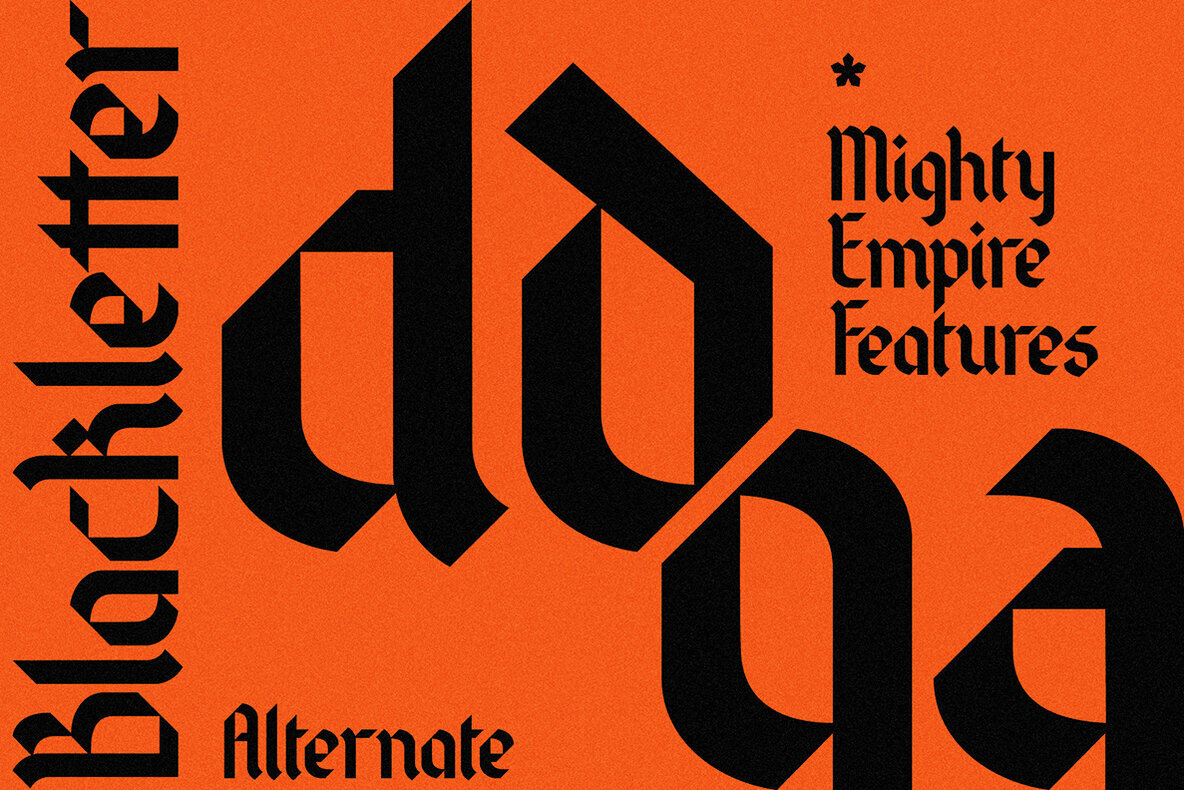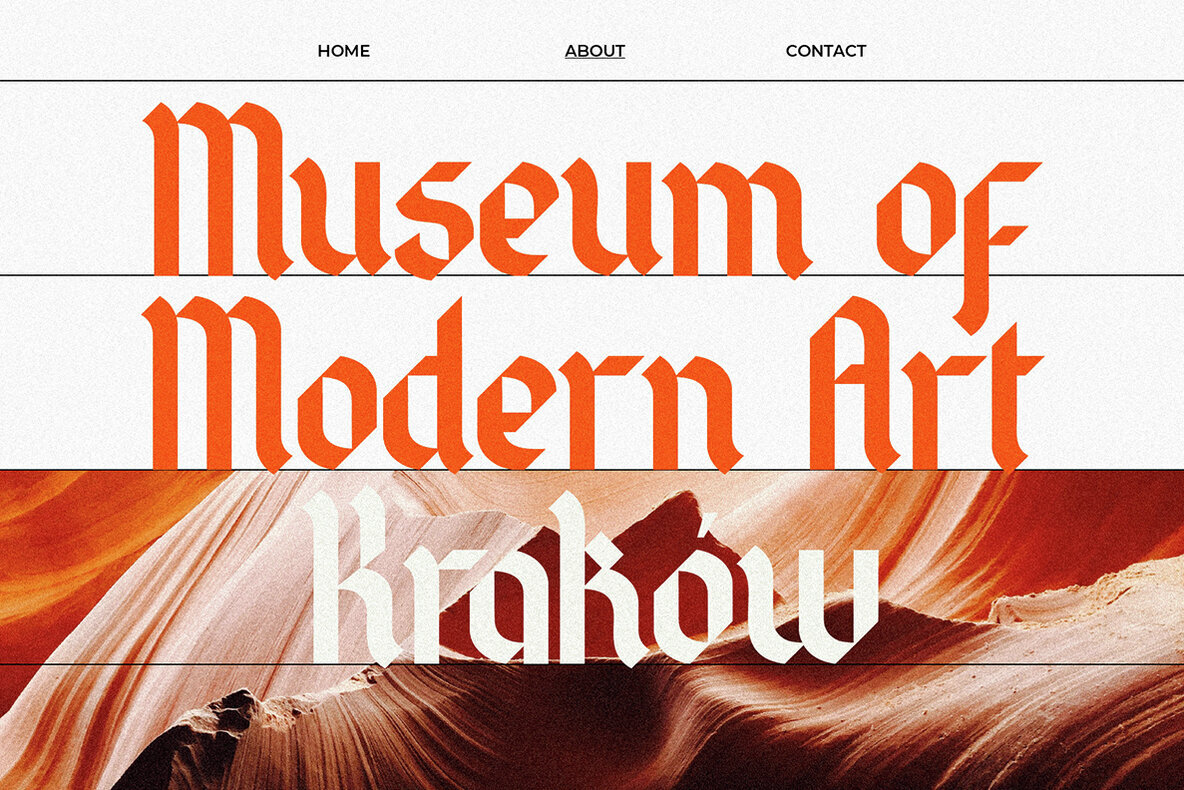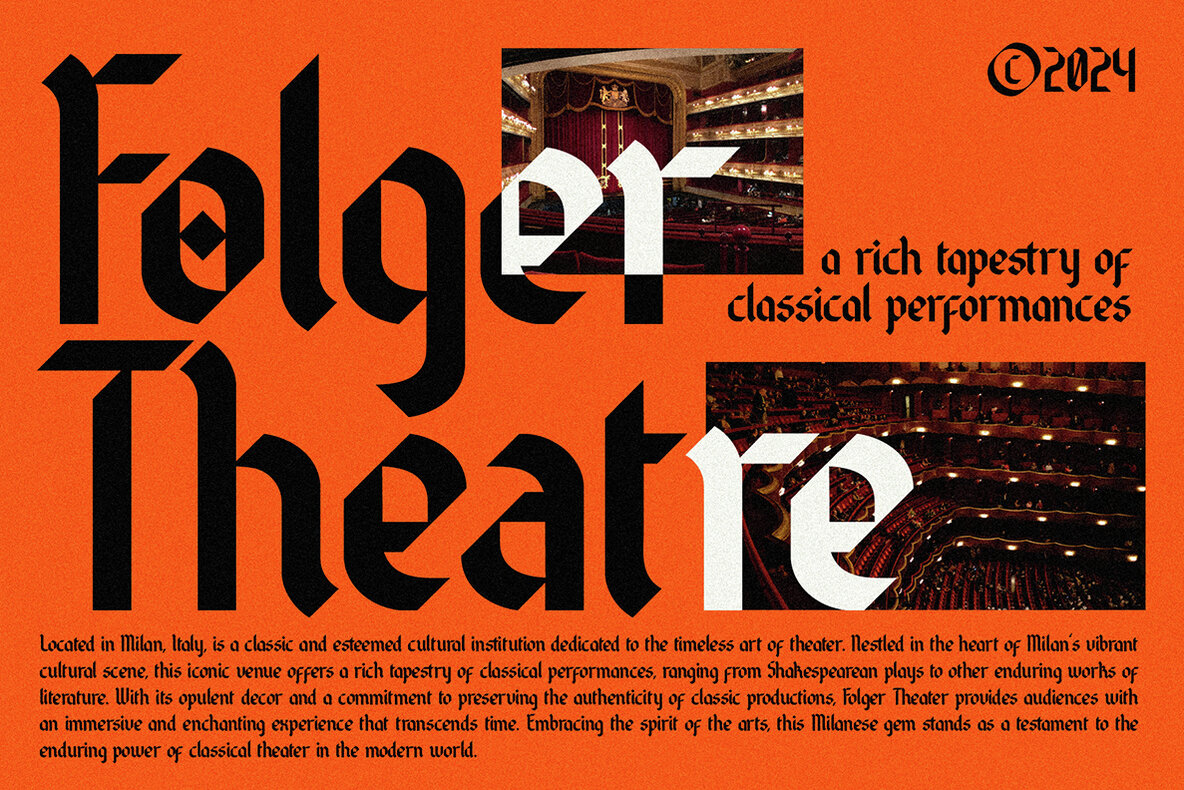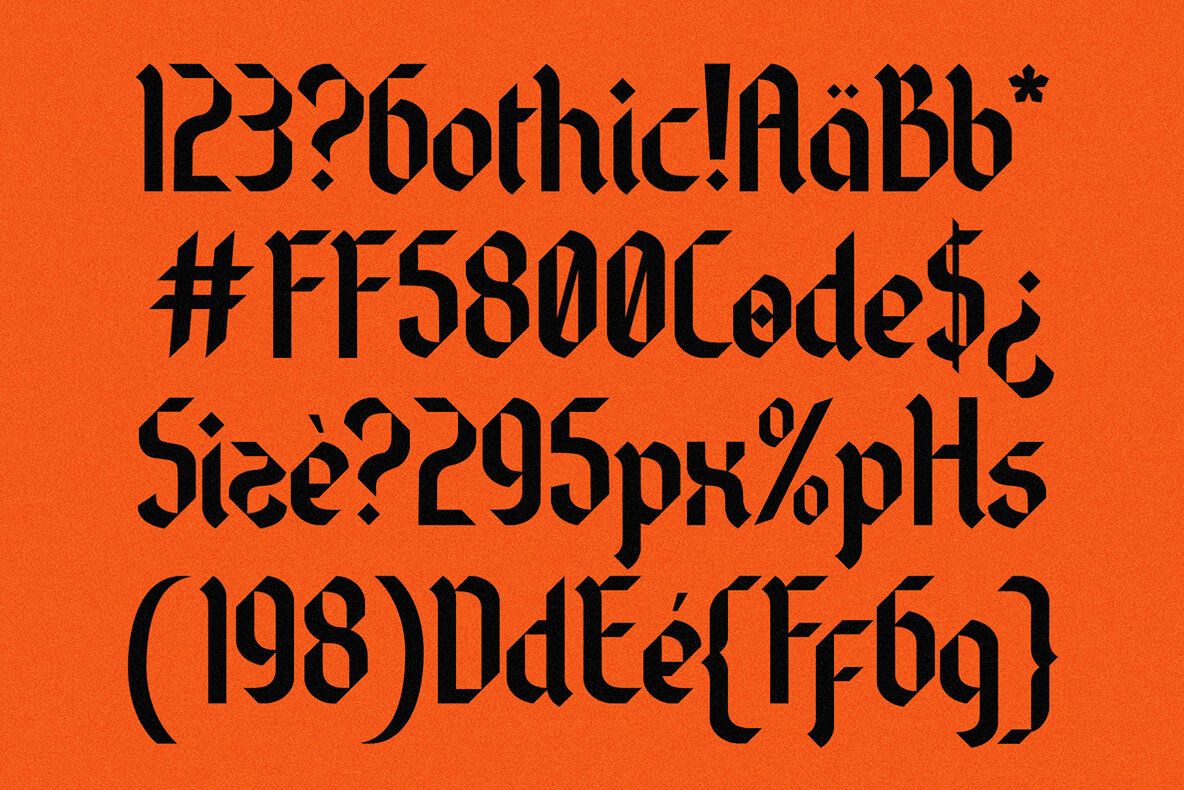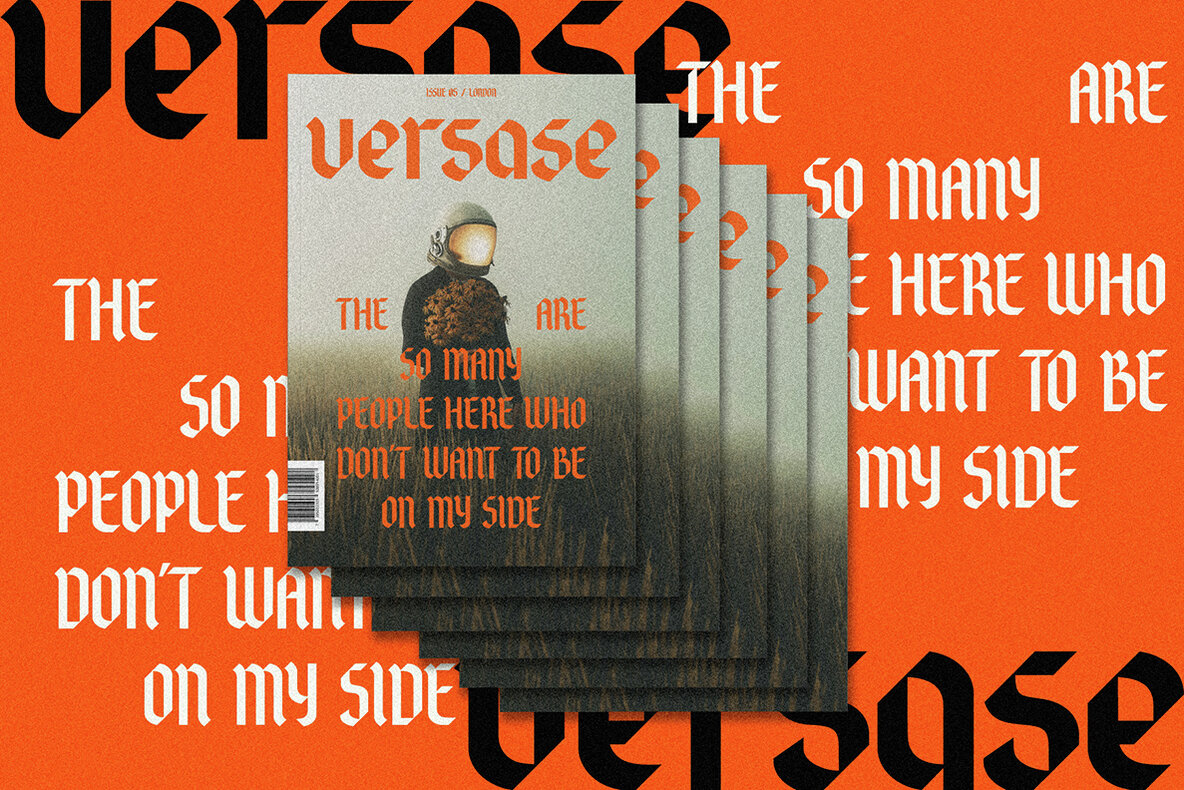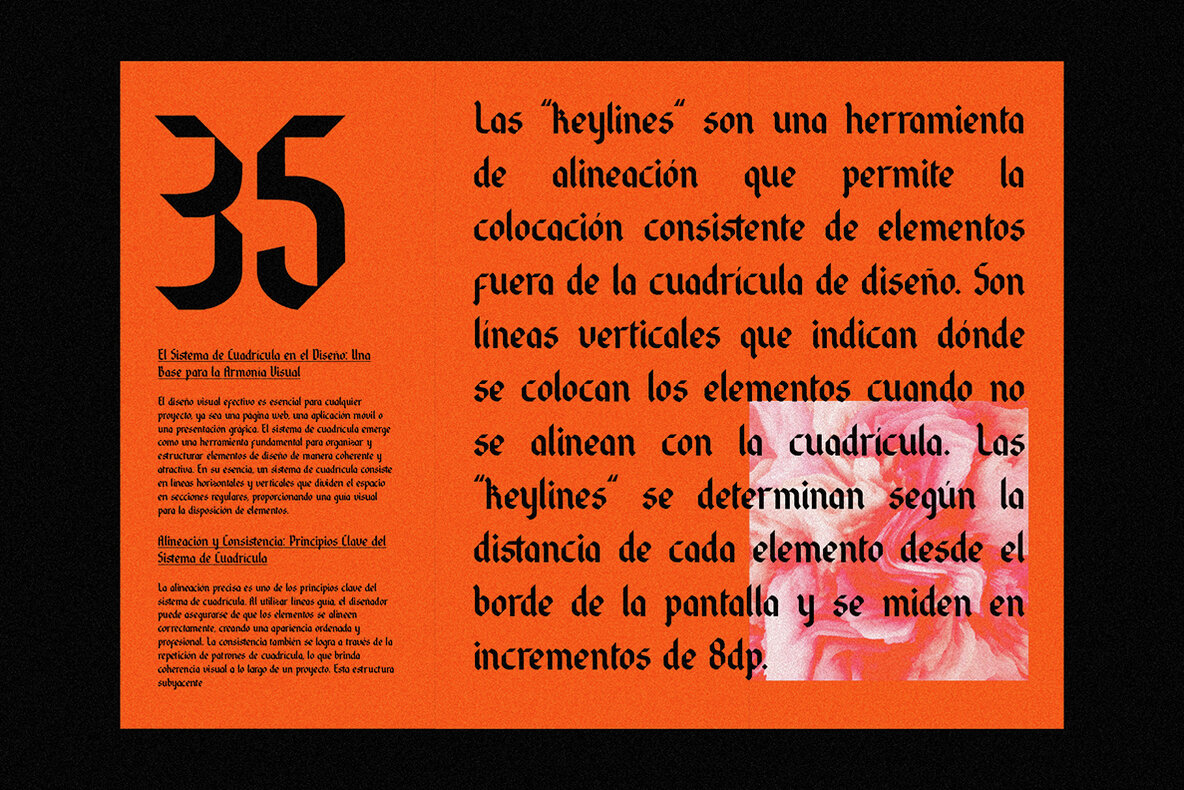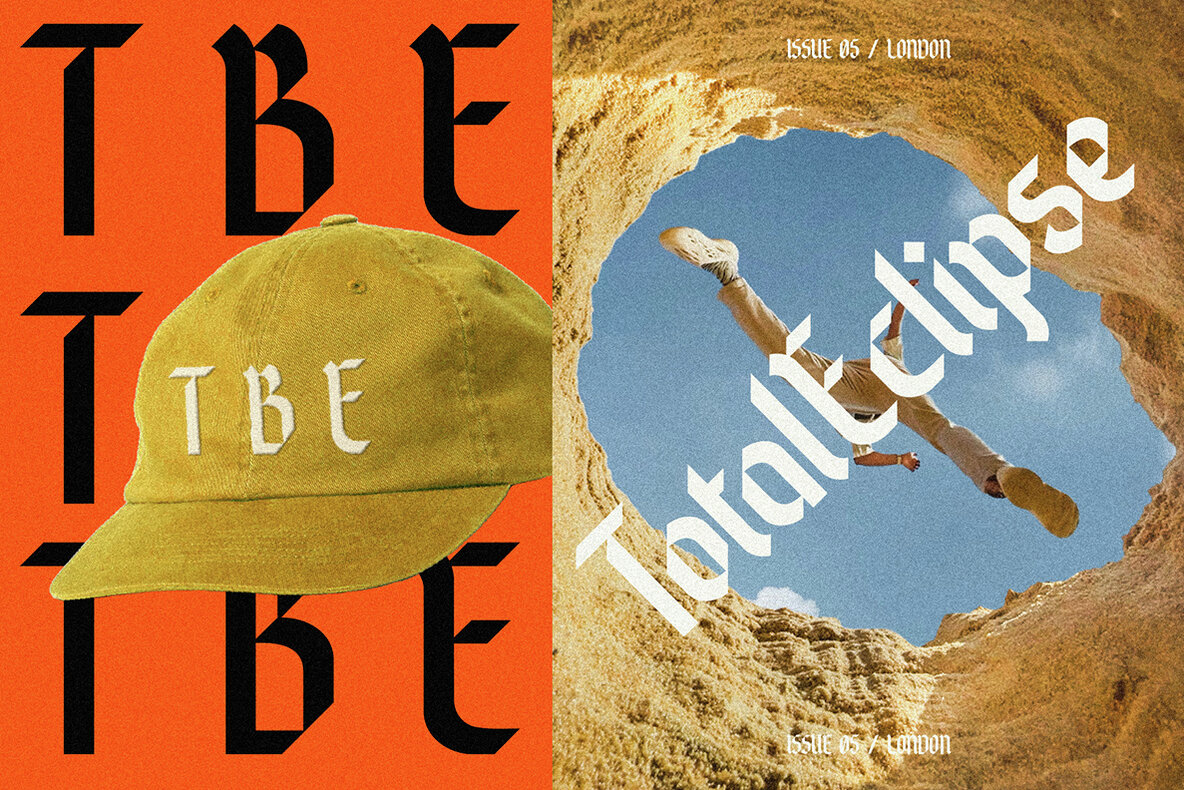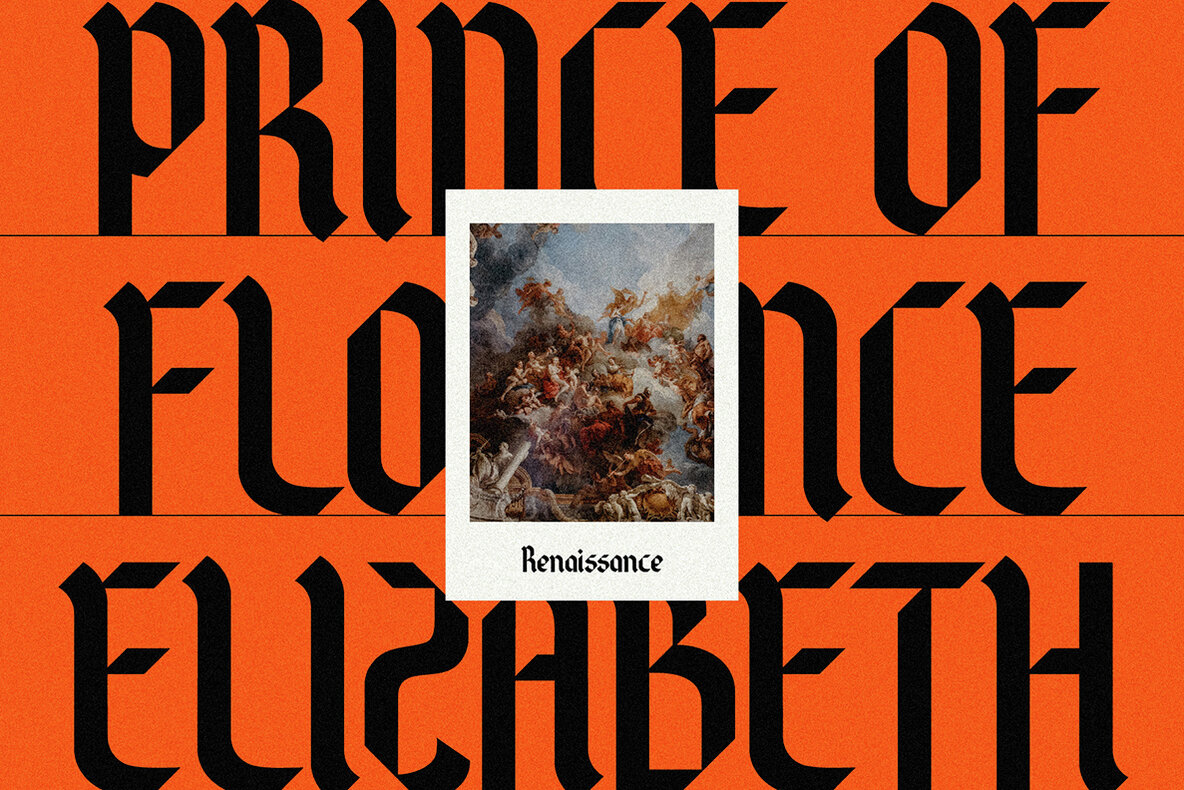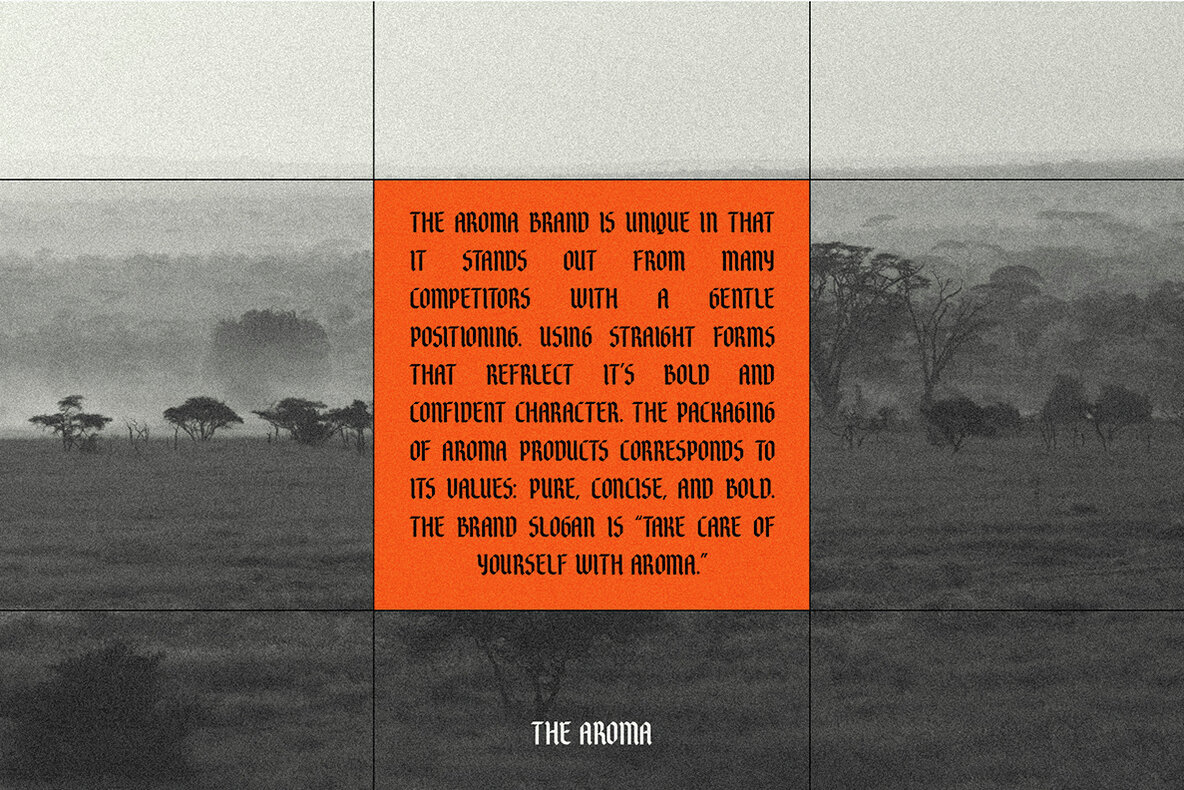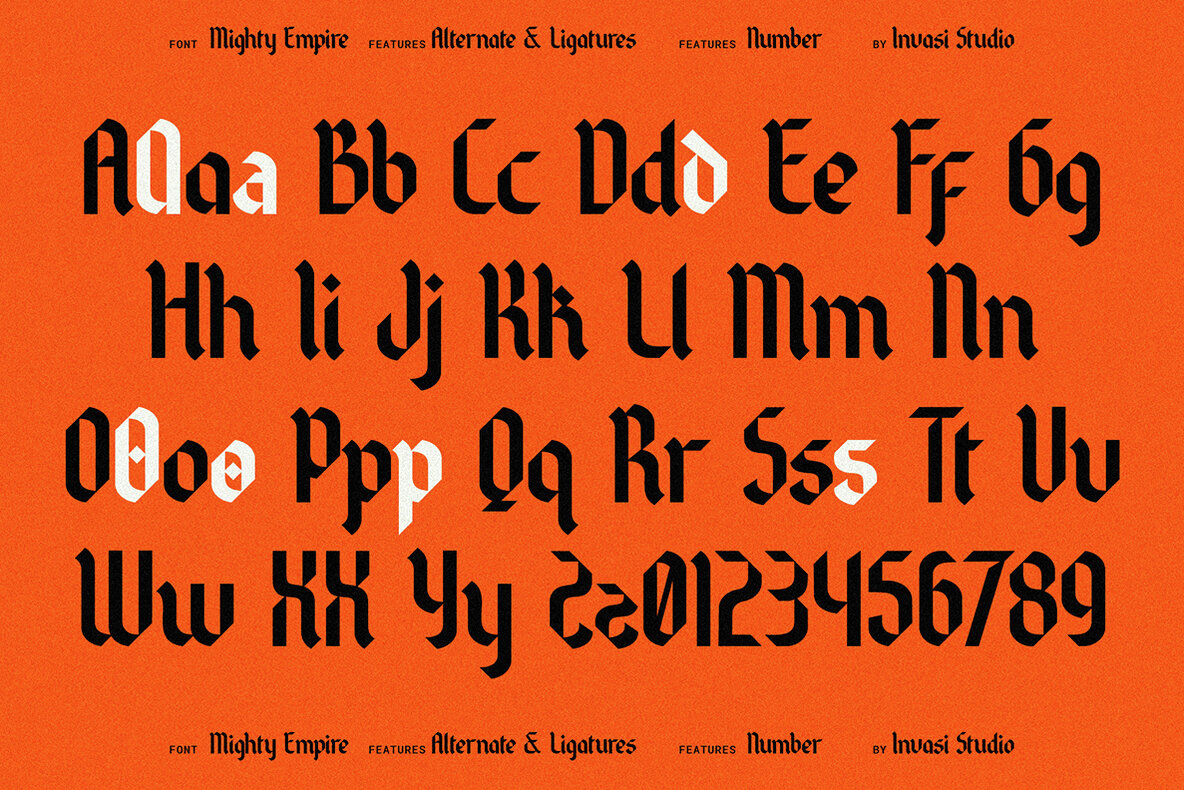
Mighty Empire Font
Mighty Empire Regular
Introducing Mighty Empire - a contemporary twist on the classic black letter font. Its distinctive diagonal slice on each glyph seamlessly blends modern sophistication with a touch of rigidity. It is ideal for those seeking a bold and refined look for their projects. On the other hand, Mighty Empire is designed for ease of use, featuring effortlessly legible characters. Perfect for headlines, logos, and branding, it brings a modern and edgy flair to your designs, making them stand out effortlessly.